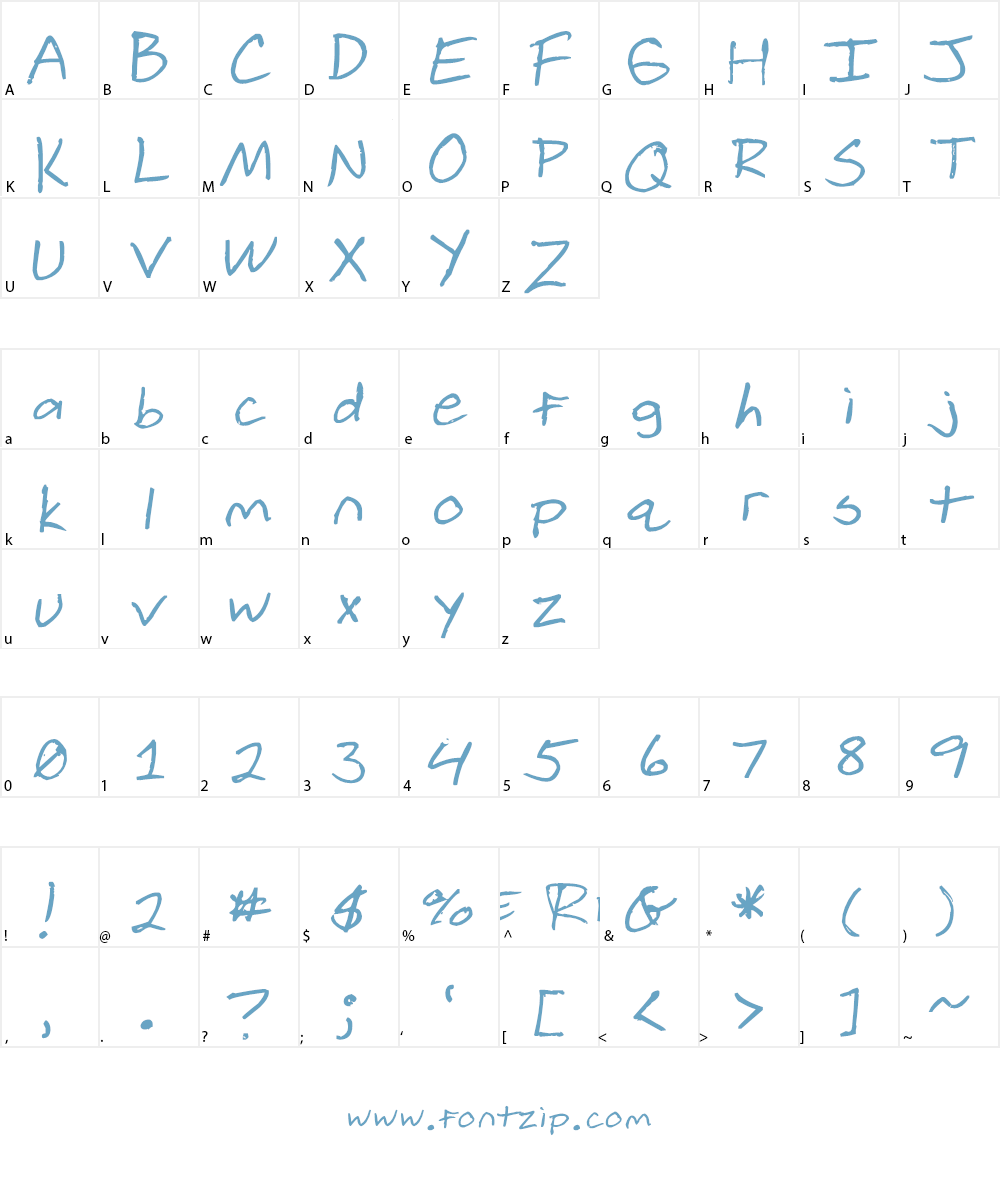
My handwriting - now a font! I wanted to make it Freeware because I know how bummed us designers get when we see some killer font and then the "personal use only" sign. Psh, might as well not even download it!